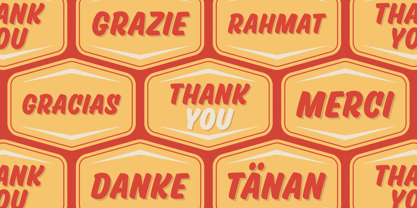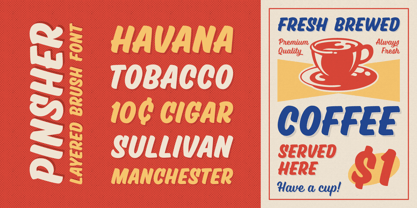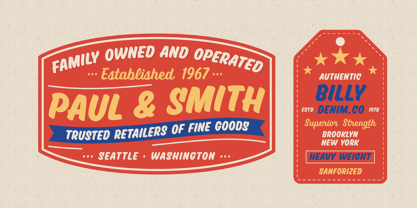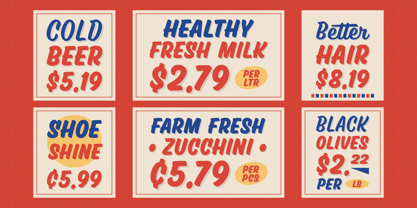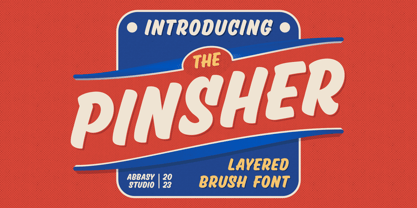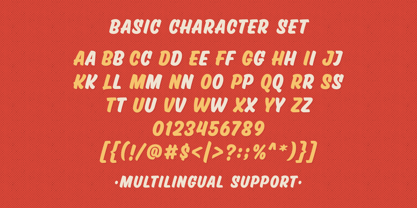
Pinsher
by Abbasy Studio
The Pinsher Font Family was designed by Angga Kristiandri and published by Abbasy Studio. Pinsher contains 2 styles and family package options. More about this family
Pinsher, is a font inspired by Signs Painting, This font is based on retro hand-painted paper signs primarily seen in grocery stores from the 1940s through today. With additional shadow font you will be able to create the beautiful combination and bring retro touch to your artworks!
Designers: Angga Kristiandri
Foundry: Abbasy Studio